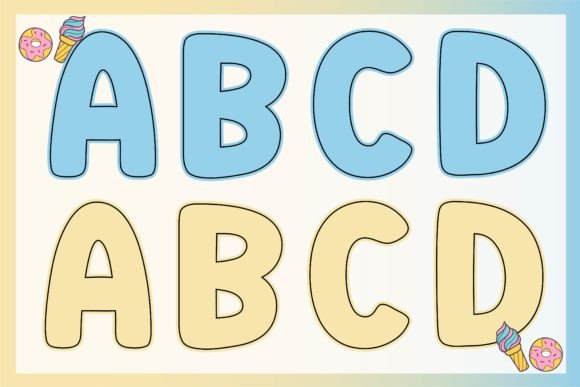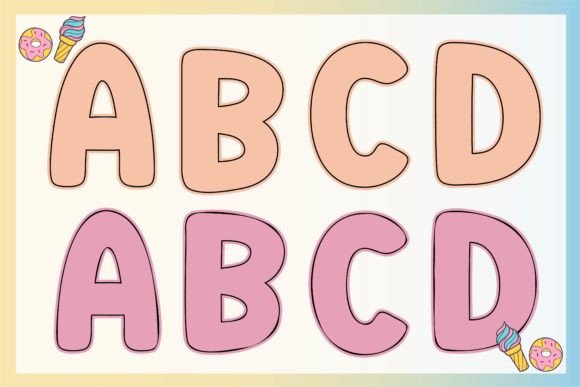
Introducing Blazing Font: The Ultimate Retro Display Font for Creative Projects
Are you looking for a font that can add a touch of romance and exquisiteness to your creative projects? Look no further than Blazing Font, a versatile, stylish, and playful retro display font perfect for a wide spectrum of applications. In this article, we’ll dive into the features and benefits of Blazing Font, and explore how you can use it to elevate your designs.
What is Blazing Font?
Blazing Font is a retro display font that boasts a unique blend of style and playfulness. Its elegant and refined design makes it perfect for use in a variety of creative projects, including greeting cards, headlines, and more. Whether you’re a designer, crafter, or DIY enthusiast, Blazing Font is sure to become a staple in your font collection.
Key Features of Blazing Font
- Versatile: Blazing Font can be used in a wide range of applications, from digital designs to print materials.
- Stylish: Its retro design gives it a unique and stylish edge that’s sure to turn heads.
- Playful: Blazing Font has a playful touch that’s perfect for adding a bit of whimsy to your designs.
- Romantic: Its elegant design makes it perfect for use in romantic and feminine designs.
- Exquisite: Blazing Font adds a touch of exquisiteness to any design, making it perfect for high-end projects.
Using Blazing Font in Your Creative Projects
Blazing Font is perfect for a wide range of creative projects, including:
- Greeting Cards: Add a touch of elegance and whimsy to your greeting cards with Blazing Font.
- Headlines: Use Blazing Font to create eye-catching headlines for your blog posts, articles, and more.
- Digital Designs: Blazing Font is perfect for use in digital designs, such as social media graphics, email headers, and more.
- Print Materials: Use Blazing Font in your print materials, such as brochures, flyers, and posters.
Tips for Getting the Most Out of Blazing Font
Here are a few tips for getting the most out of Blazing Font:
- Experiment with colors: Blazing Font is a color font, so don’t be afraid to experiment with different colors and combinations.
- Play with font sizes: Blazing Font looks great in a variety of font sizes, from large and bold to small and delicate.
- Combine with other fonts: Blazing Font pairs well with a range of other fonts, so feel free to experiment with different combinations.
Blazing Font is a versatile, stylish, and playful retro display font that’s perfect for a wide range of creative projects. Its elegant and refined design makes it perfect for use in romantic and feminine designs, while its playful touch adds a bit of whimsy to any project. With its compatibility with a range of software, including PhotoShop, Illustrator, Silhouette, and Inkscape, Blazing Font is a great addition to any designer’s or crafter’s font collection.